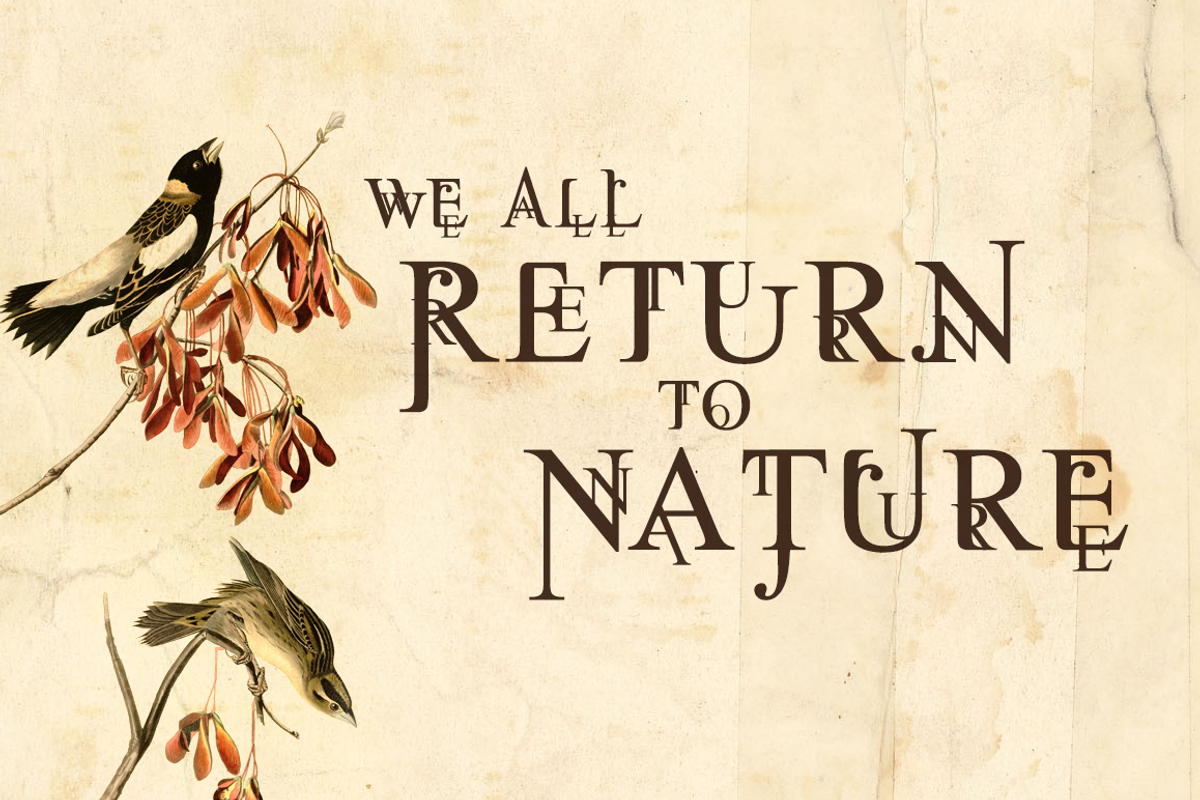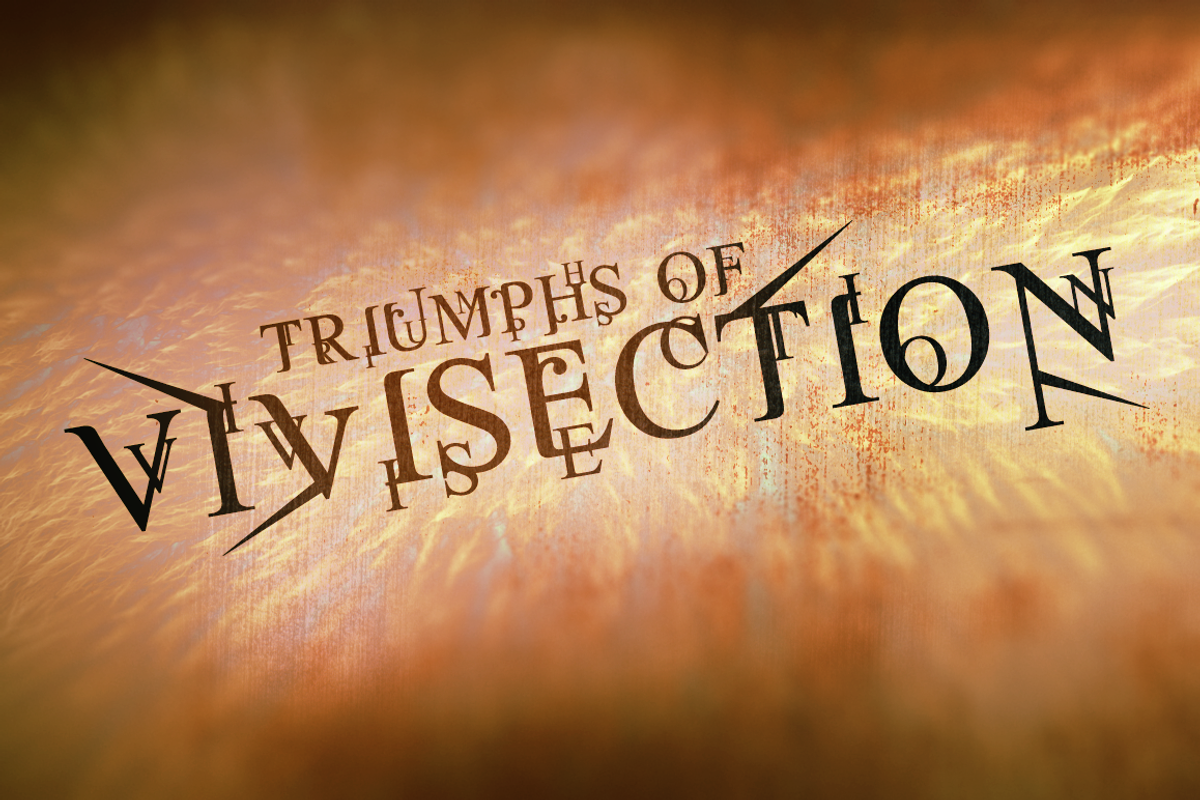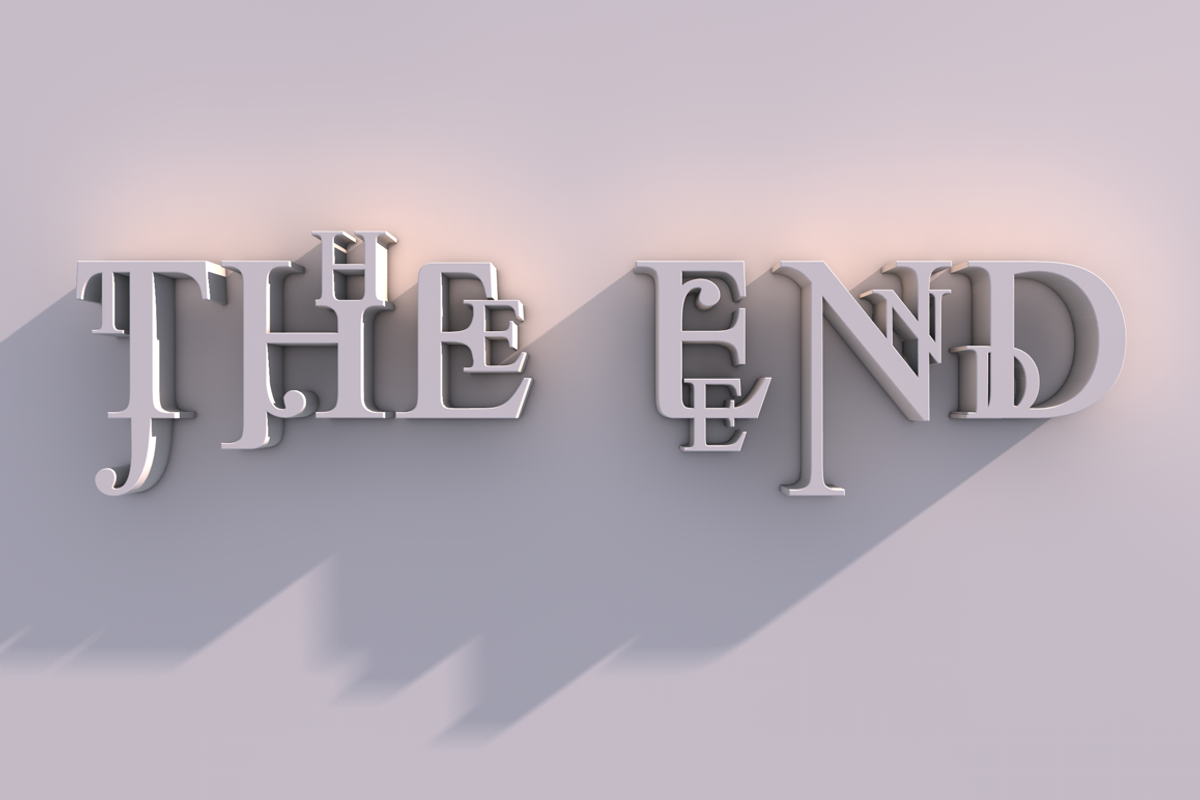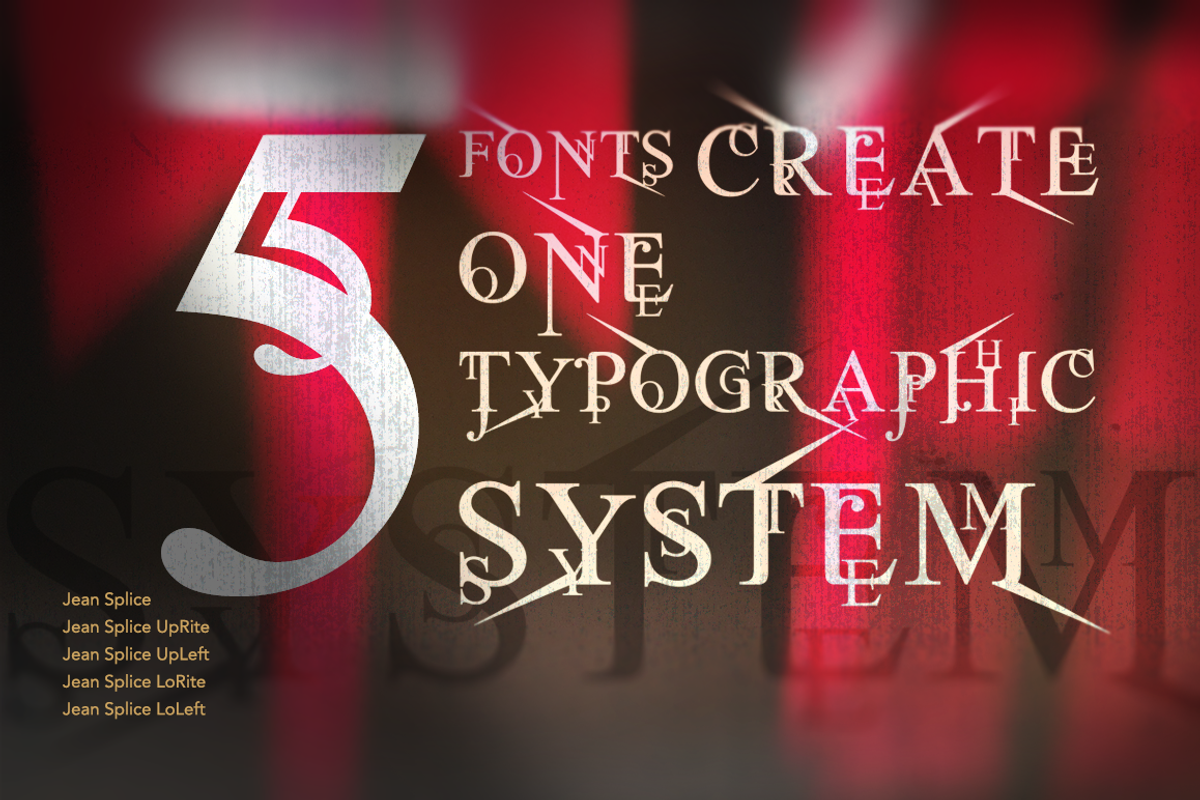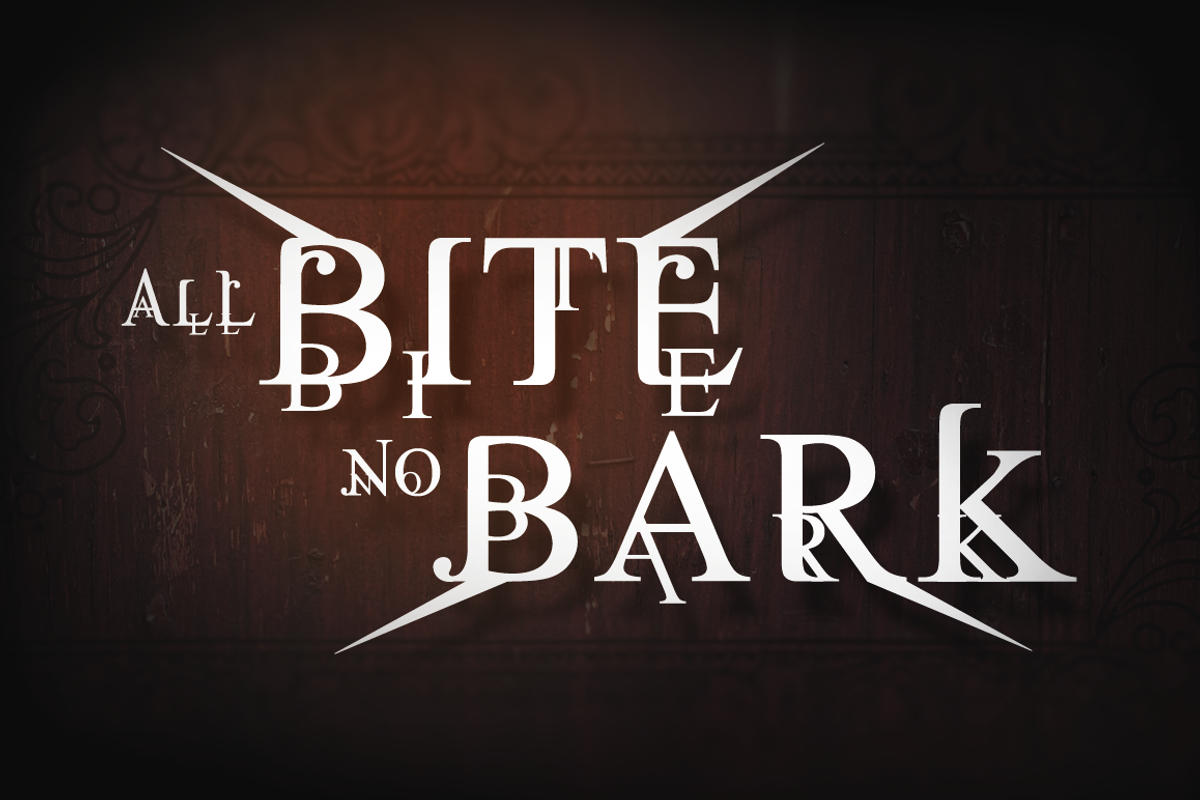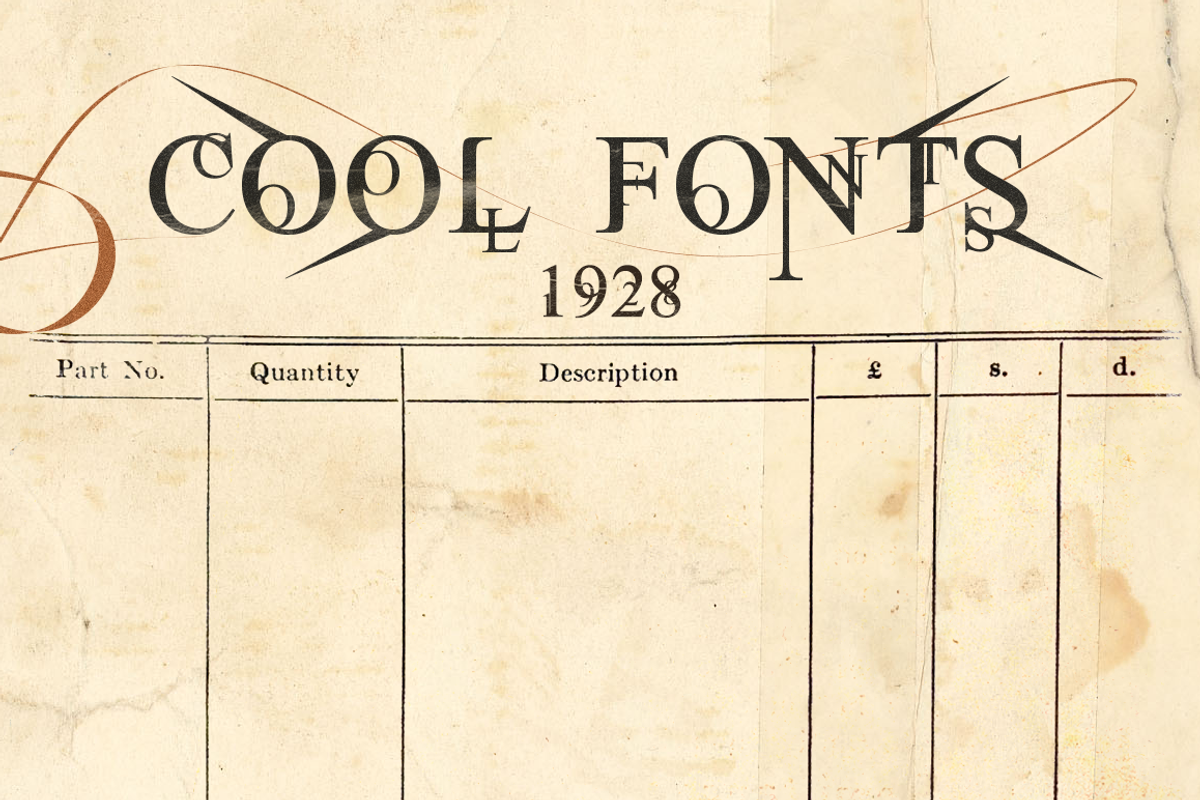
Jean Splice
Jean Splice is a 5-font system designed to help you easily create custom titles in minutes. Use it on all sorts of things like; blog headers, posters, branding, logos, fashion, apparel, signage, invitations, stationary, etc. Although it is an all caps font, the lower case looks different so you can mix for even more customization. Besides the Jean Splice Regular, there are 4 variations of the font with spikes sticking out in different directions (UpLeft, LoLeft, UpRite, LoRite). These variations can be used to create some very cool custom effects. All fonts include the full character set with numbers, punctuation, accents, etc
The design was inspired by The Island of Dr. Moreau. In this movie the crazed Dr Moreau "splices the genes" of different animals with those of humans. The results are unexpected - just like this font.
- All fonts include the full character set with numbers, punctuation, accents, etc The design was inspired by The Island of Dr.
Jean Splice by Cool Fonts fits naturally into Branding, posters, packaging, typography.